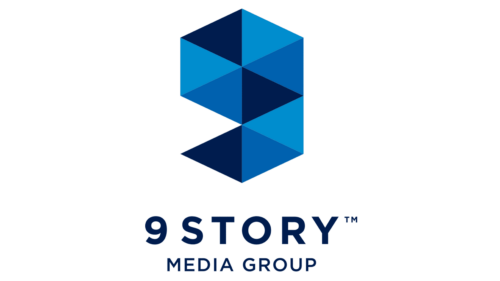
9 Story Media Group Logo and symbol, meaning, history, PNG, brand
Story Media Group, headquartered in Toronto, is a prominent global content producer and distributor for children’s animated and live-action content. Owned by ZM Capital and Neil Court, the company has garnered recognition for its engaging storytelling and innovative animation. Branching out beyond its Canadian borders, 9 Story has made its mark internationally, with operations in New York, Dublin, Manchester, and Bali. With a rich portfolio, the company has partnerships across television networks and digital platforms worldwide, solidifying its reputation in the children’s entertainment sector.
9 Story Media Group Logo history
Founded by Vince Commisso and Steven Jarosz in 2002, 9 Story Media Group has rapidly evolved to become a leader in children’s entertainment. From its inception, the company focused on producing and delivering high-quality animated and live-action content. Over the years, its achievements include securing partnerships with major broadcasters, acquiring prominent brands, and expanding its global footprint. Today, with a diversified content portfolio and a strong presence across various platforms, 9 Story stands at the forefront of the children’s media landscape, continuing its journey of creativity and excellence.
What is 9 Story Media Group?
9 Story Media Group is a leading international children’s content producer and distributor based in Toronto. Renowned for its animated and live-action series, the company has consistently delivered engaging stories to audiences worldwide, solidifying its place in the global entertainment industry.
2002 – 2007
9 Story Media Group Logo 2002
The logo for “9 Story Entertainment” ingeniously combines vibrant color play with sophisticated design. Dominated by a rich hue of blue, the abstract swirl design evokes thoughts of a galaxy or a portal, suggesting infinite possibilities and depth. The number “9” seamlessly integrates within the swirl, underscoring the brand’s name and establishing its distinct identity. Beneath the emblem, the company’s name is written in a complementary orange, lending a burst of energy and contrast. Overall, this logo serves as a window into the world of imaginative storytelling and boundless creativity.
2007 – 2013
9 Story Media Group Logo 2007
A slight deviation from the primary design, this alternative “9 Story” logo exudes elegance and simplicity. The dark blue is consistent, giving the design cohesion and class. The abstract swirl remains, but this iteration focuses more on a fluid transition between the “9” and the design element. With the words “story” placed adjacently in a clear, bold typeface, it emphasizes the brand’s commitment to narratives, giving the design a sense of purpose and direction.
2013 – 2014
9 Story Media Group Logo 2013
The “9 Story Entertainment” logo is a harmonious blend of classic elegance and modern flair. The number “9” is sculpted in a sweeping, fluid blue form, resembling both a numeral and an artistic flourish. The word “story” follows, rendered in a lowercase typeface that balances the weight of the number. Its golden hue contrasts with the blue, creating a visual symmetry. Below, “Entertainment” is penned in a more reserved font, grounding the logo and emphasizing the brand’s core focus. Together, they form a cohesive emblem, portraying both creativity and professionalism.
2014 – 2018
9 Story Media Group Logo 2014
This variant of the “9 Story” logo takes a more linear and expansive approach. The familiar blue swirl representing the number “9” stretches horizontally, merging seamlessly with the word “story” in a fluid cursive style. Beneath this combination, “Media Group” is printed, announcing the brand’s diverse media endeavors. The use of deep blue and the inclusion of the trademark symbol lend the design an authoritative and established feel while maintaining its inherent artistic charm.
2018 – Today
9 Story Media Group Logo
Breaking away from the previous curvaceous designs, this rendition for “9 Story Media Group” adopts a geometric approach. A three-dimensional cube, intricately folded, takes center stage. Comprised of varying shades of blue, the design gives an illusion of depth and movement. The cube’s facets and angles can be interpreted as different narratives or stories, a nod to the brand’s storytelling prowess. Positioned below is the company’s name, with “9 STORY” in bold and “Media Group” beneath. The typeface is modern and clean, complementing the structured cube while asserting the brand’s contemporary vision.